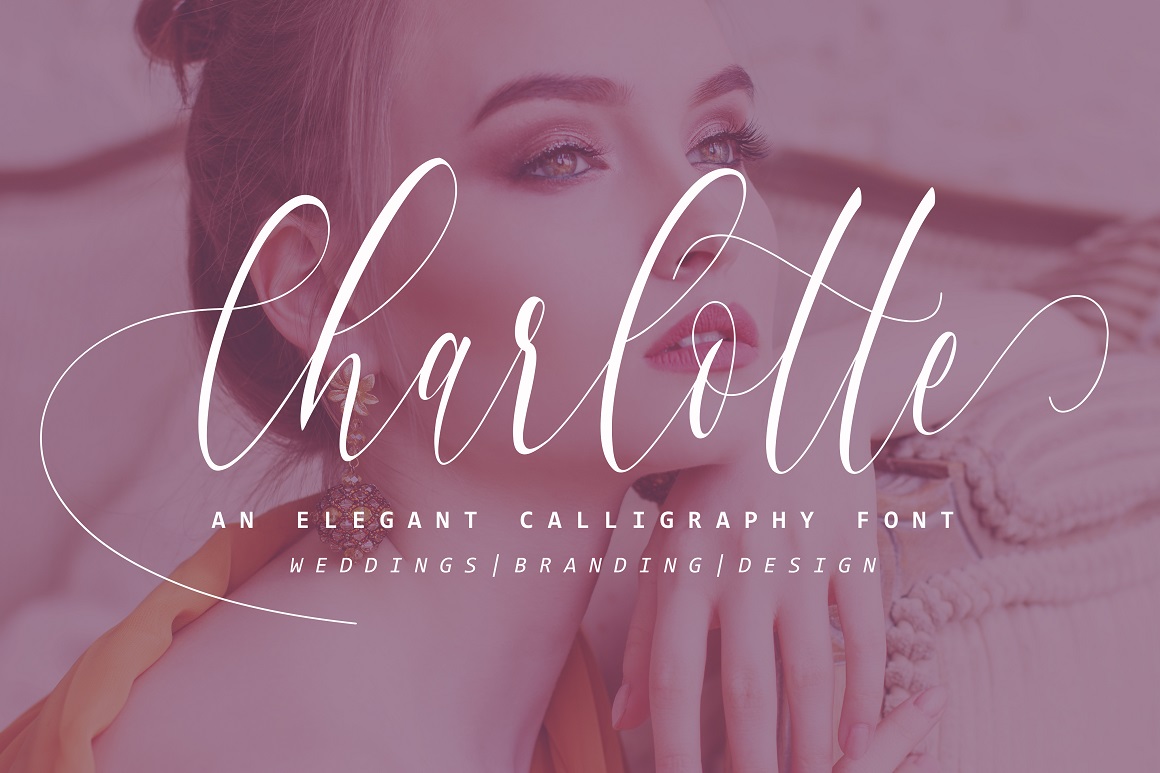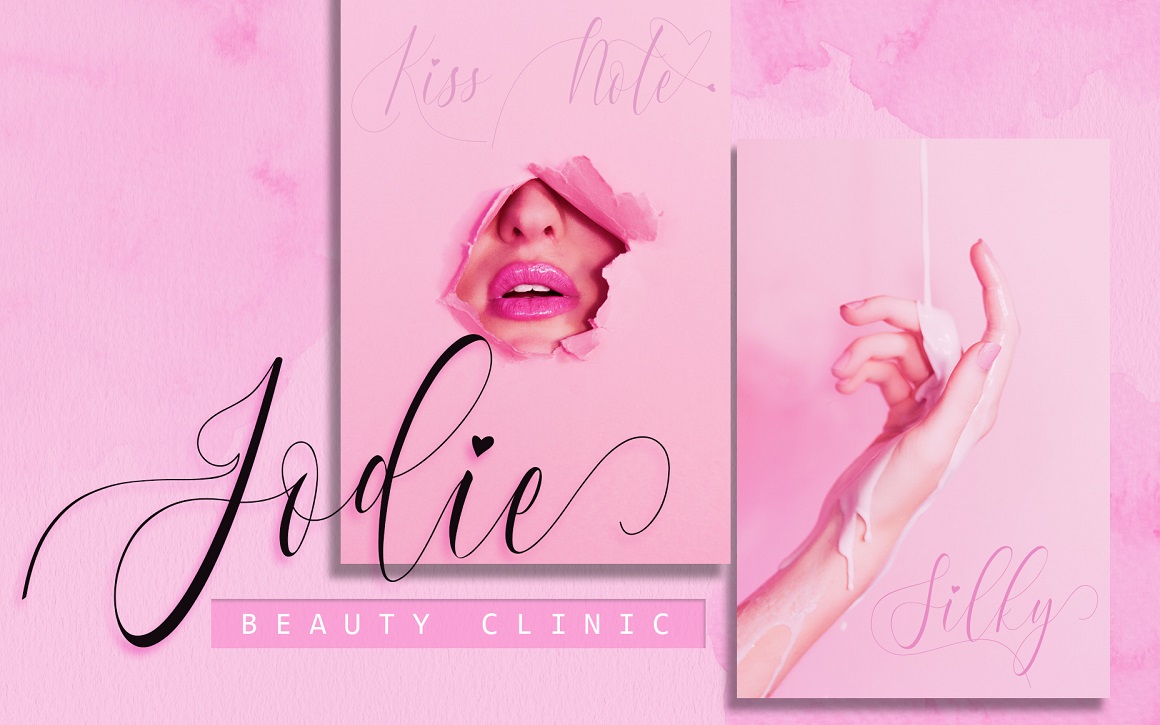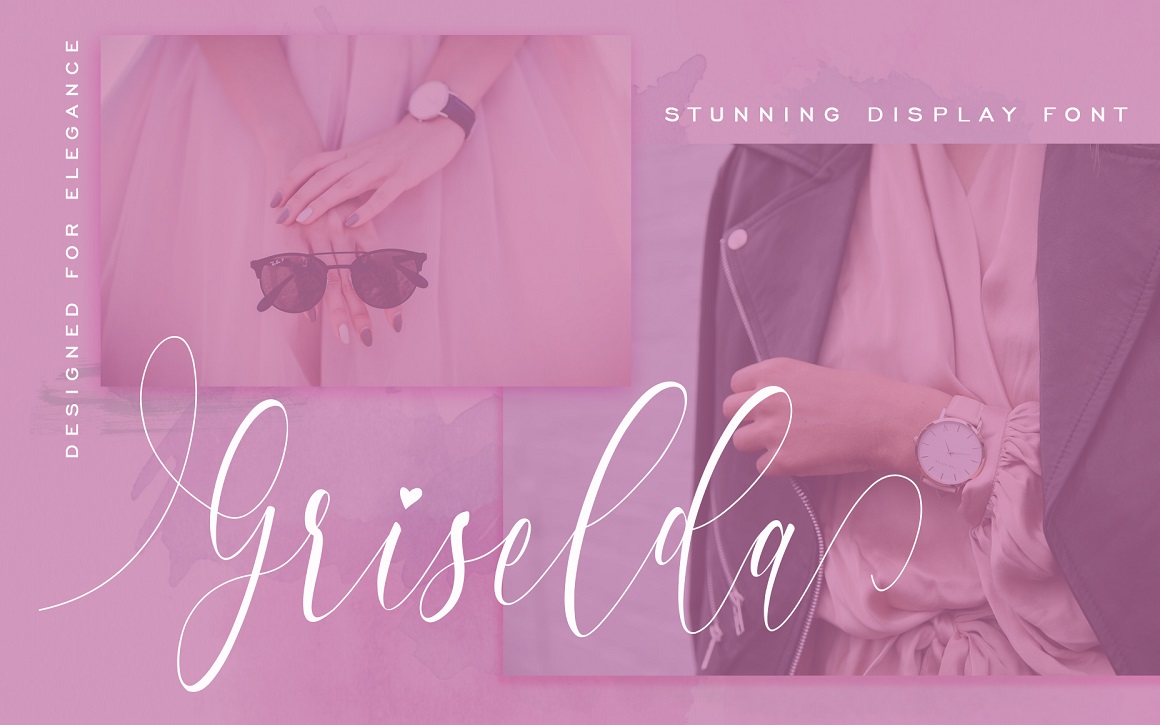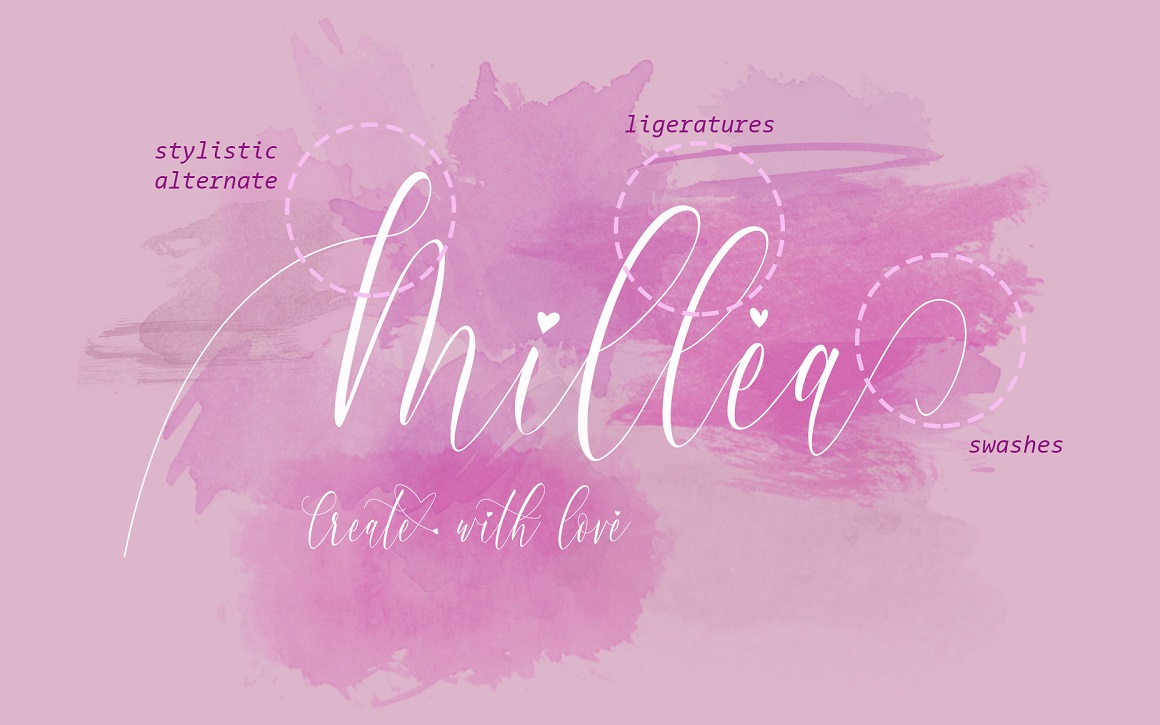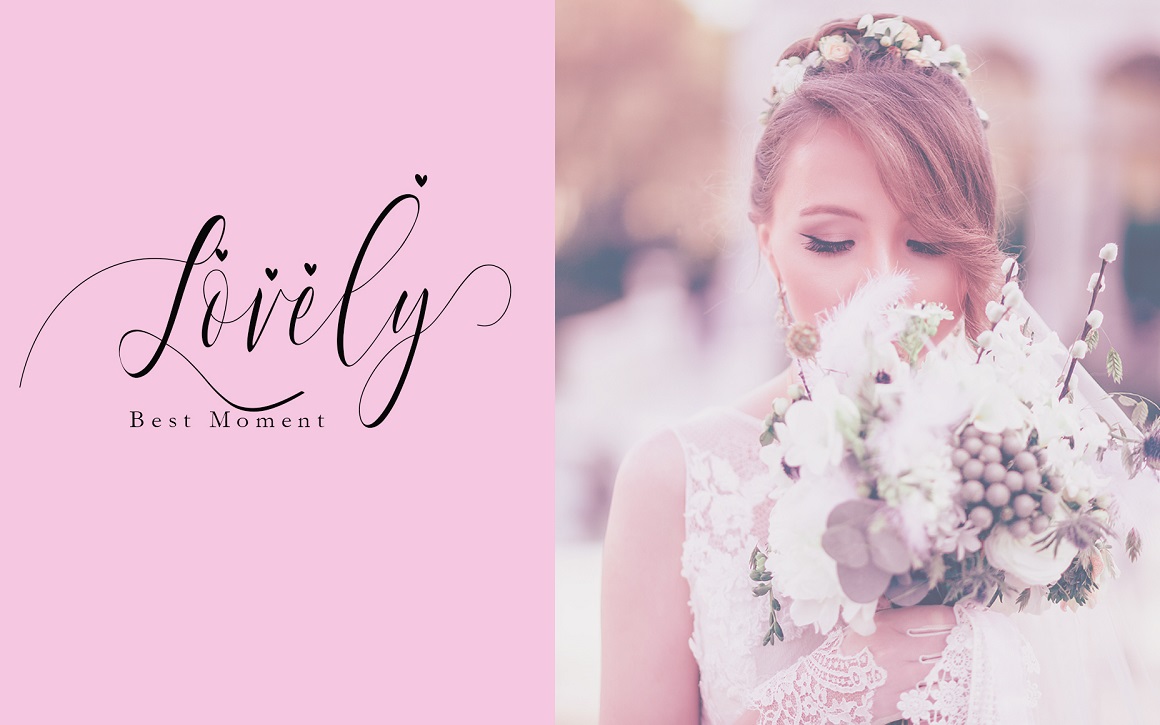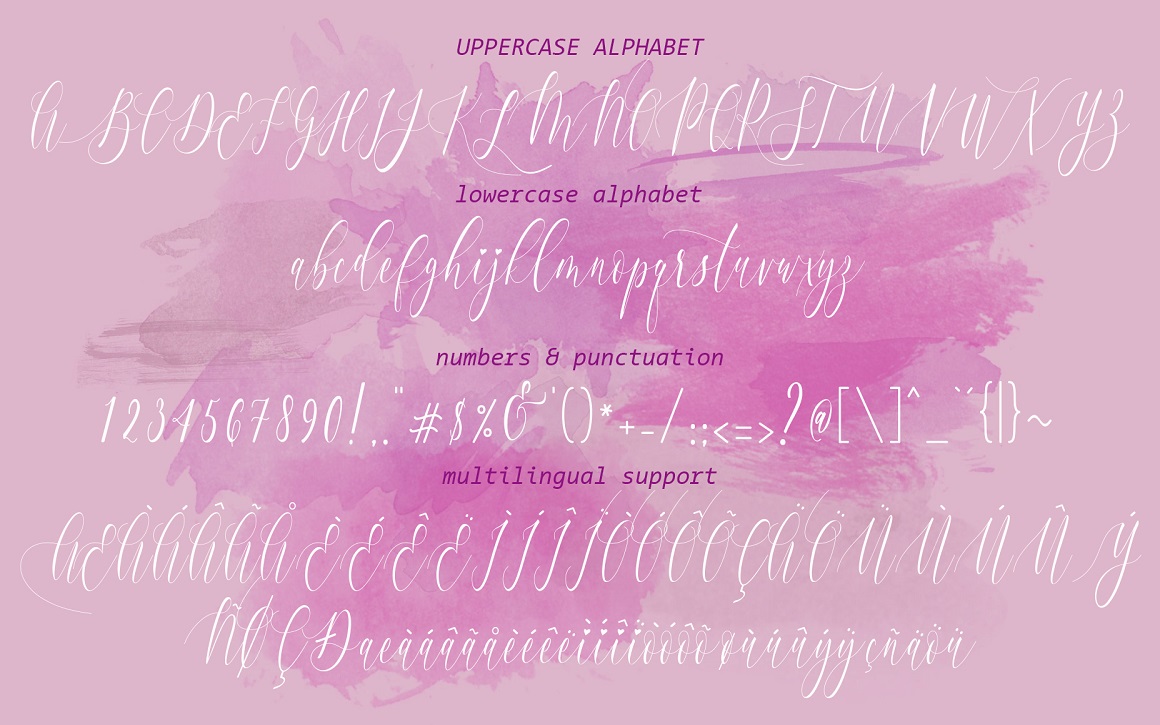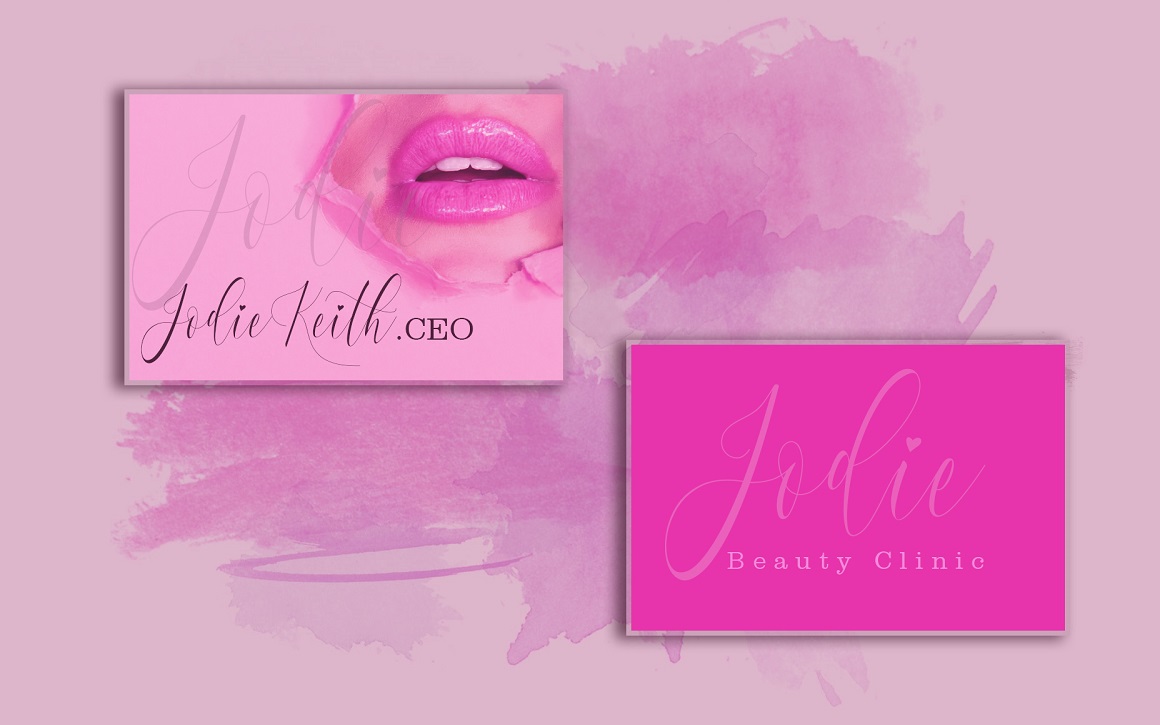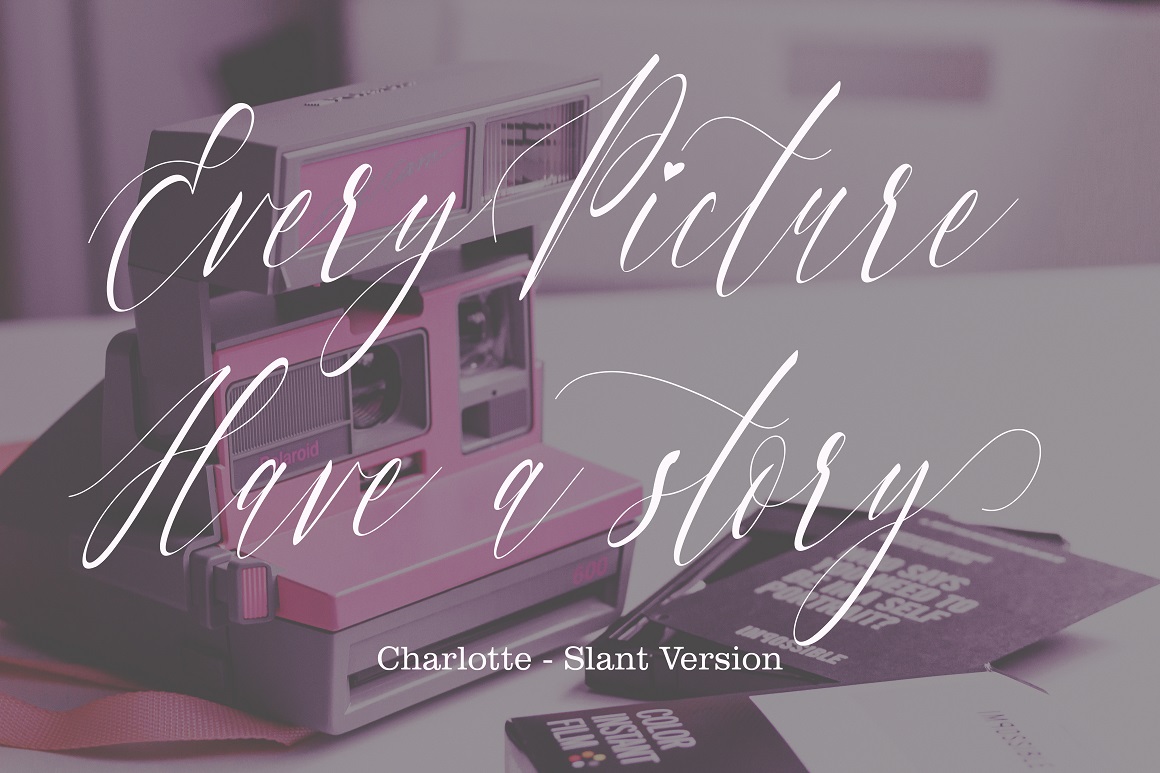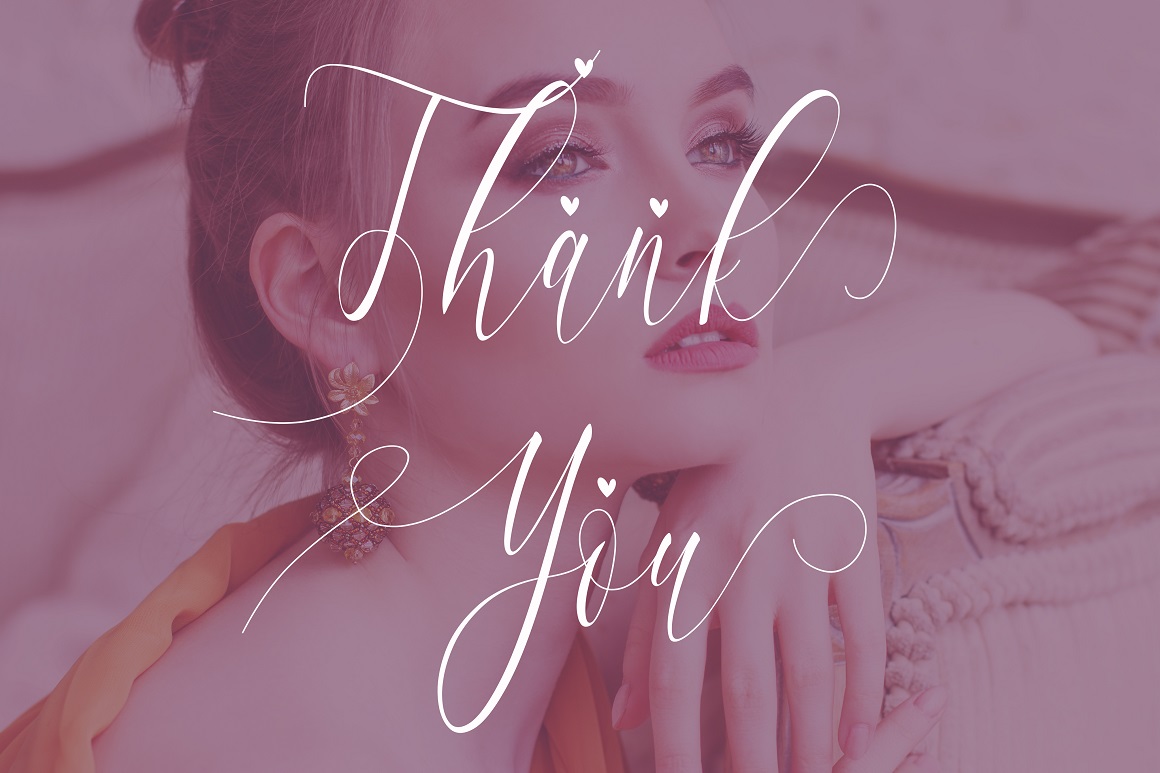
Charlotte Calligraphy Font
About Charlotte Calligraphy Font
Charlotte Calligraphy is an elegant font with a romantic appeal; this font is for those who are in need of an elegant and appropriately modern calligraphy script.